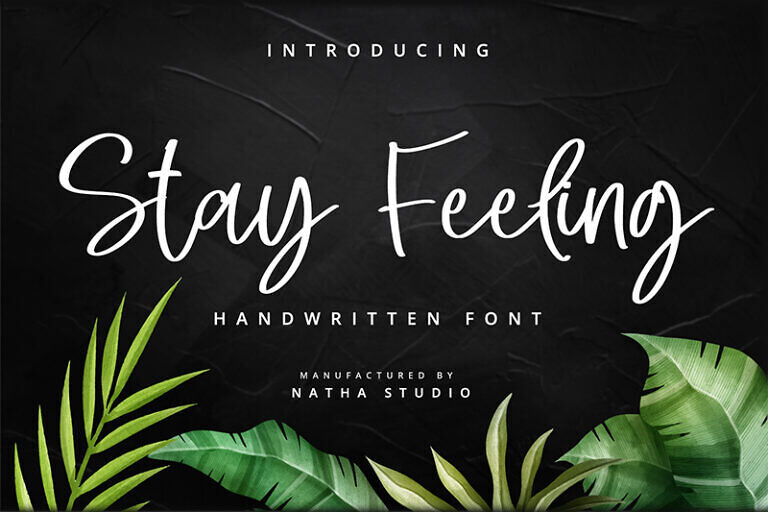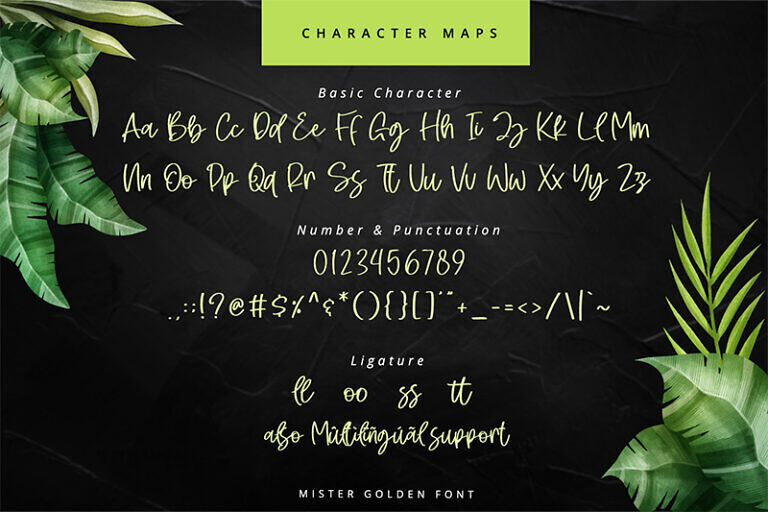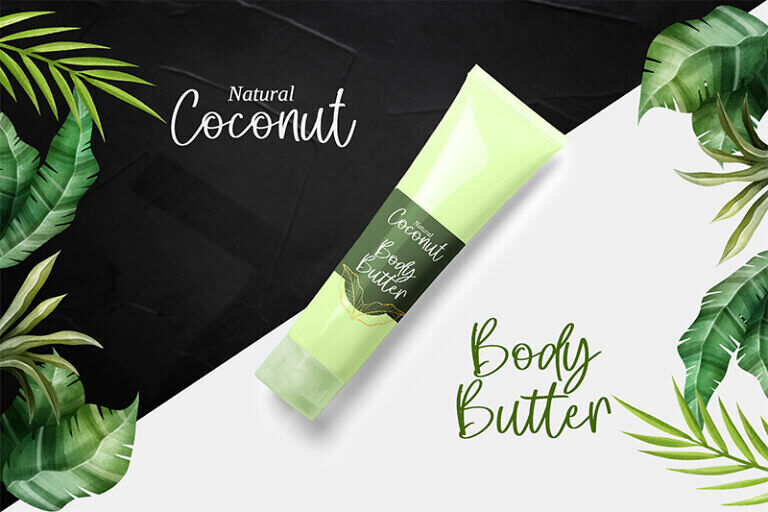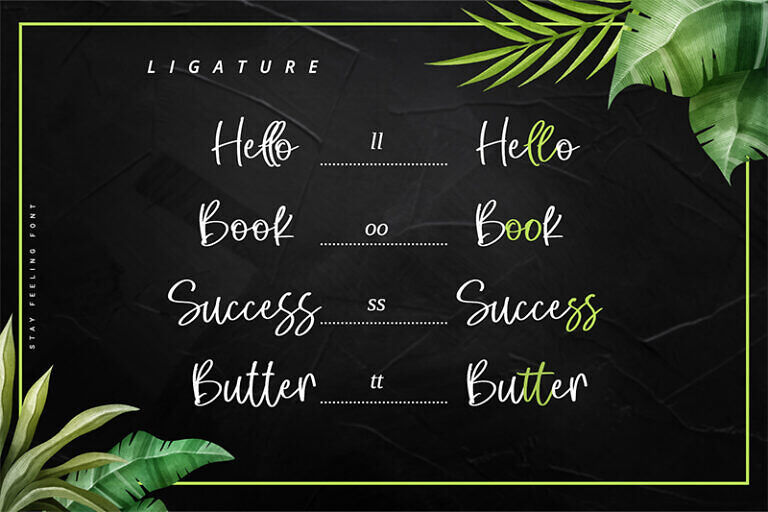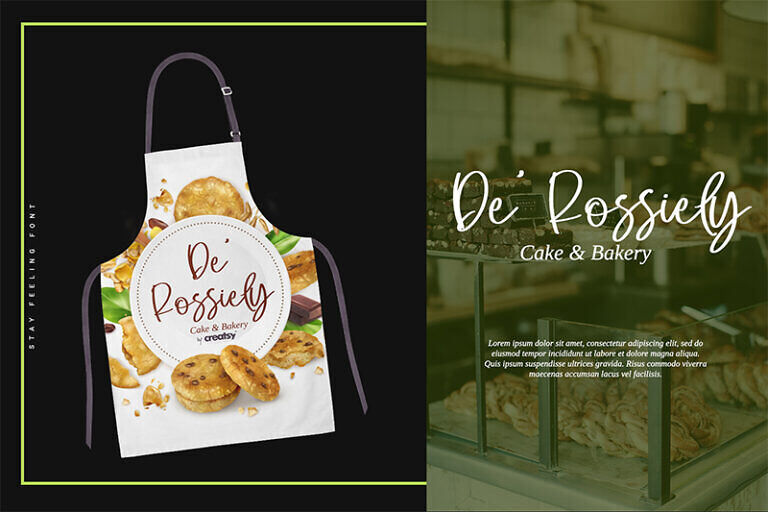
Stay Feeling Font
Stay Feeling is a beautiful handwritten font. It brings an attractive typeface. Made for any professional projects. The font is suitable for any project like logo, t-shirt printing, wedding invitations, and greeting cards to social media quotes, branding, and more! Outstanding in a wide range of contexts.
Designed by: Din Studio